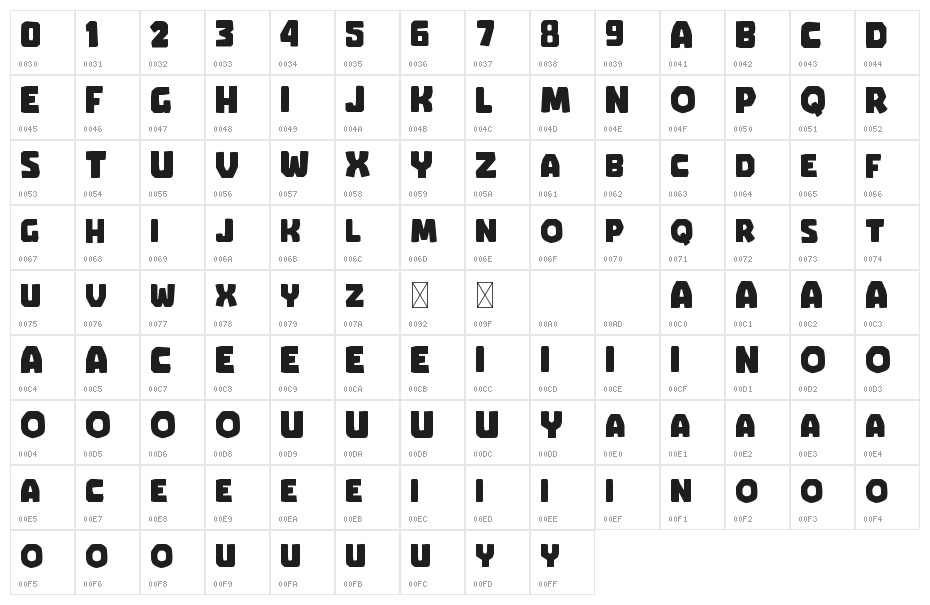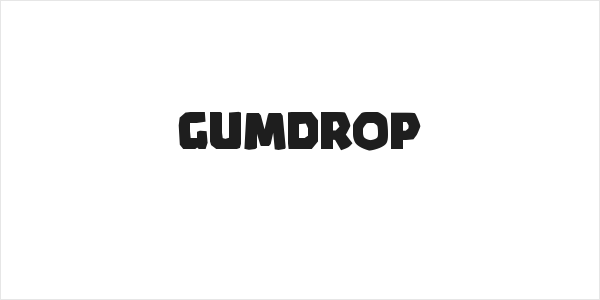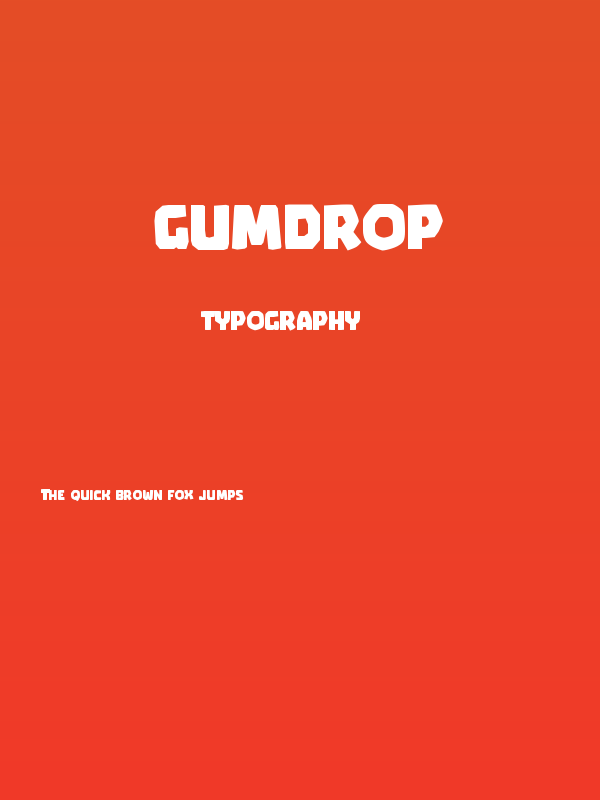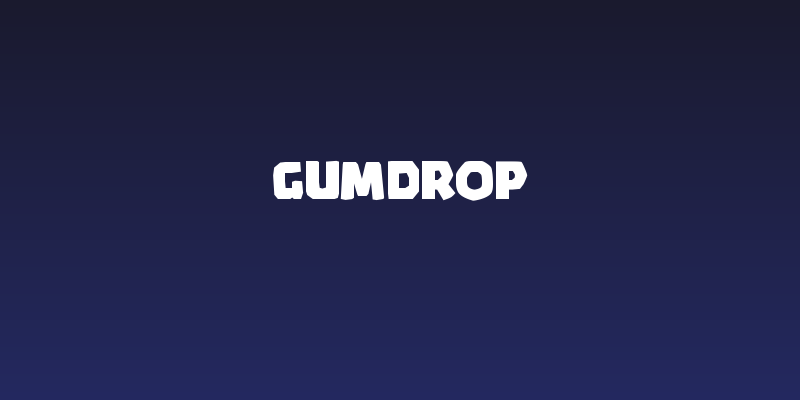
GUMDROP Font
GUMDROP Description
This font features a bold, playful style with a chunky and rounded appearance. The characters are designed with a slightly irregular shape, giving them a whimsical and fun look. The strokes are thick and consistent, creating a strong visual impact. The overall design is reminiscent of hand-drawn lettering, adding a touch of personality and charm. The font is highly legible, making it suitable for various display purposes where a lively and engaging aesthetic is desired.
| Proposed Projects | Ideal for children's books, playful branding, posters, and any project needing a fun, engaging typeface. |